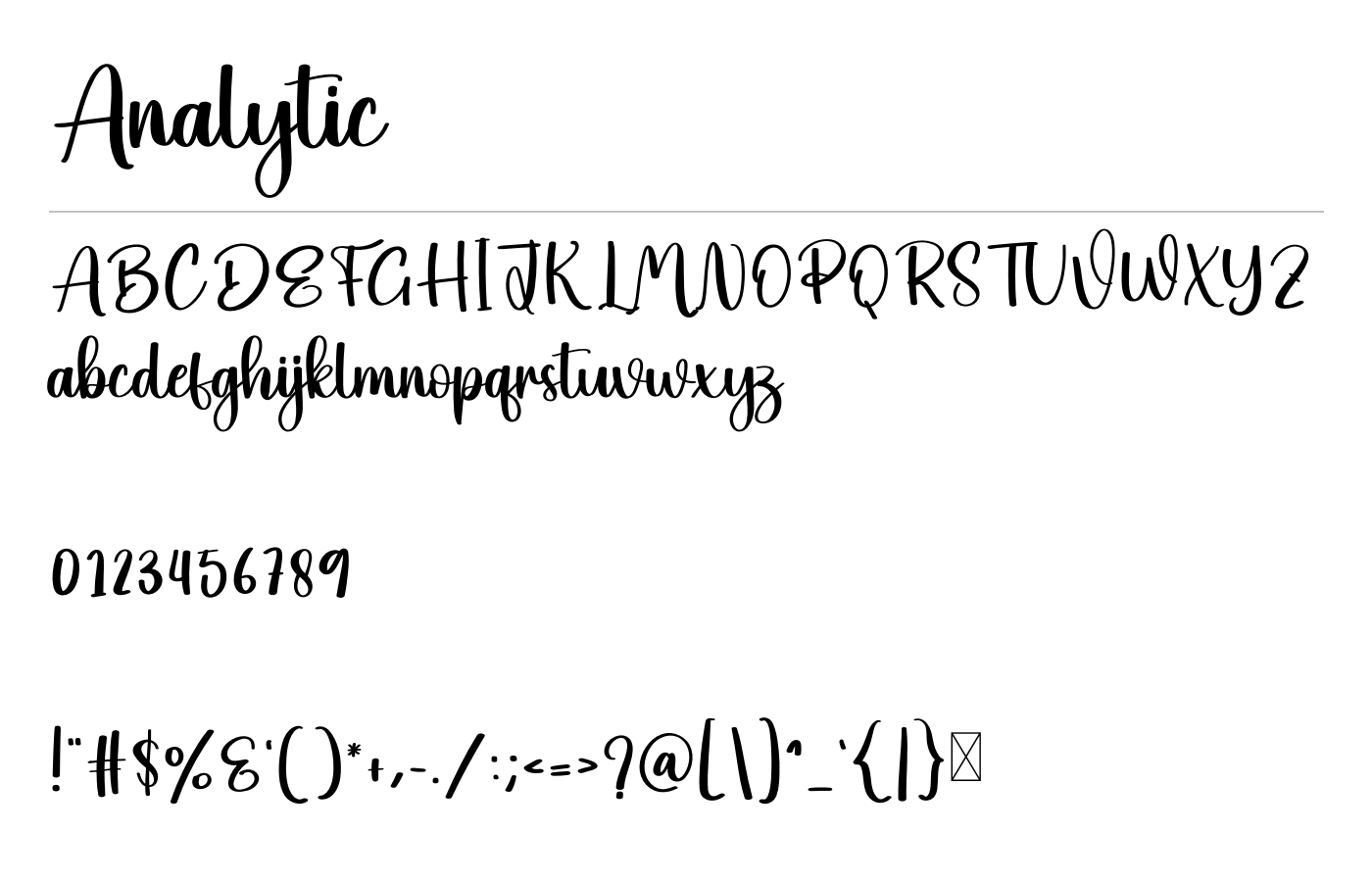
Analytic Font is a lively and elegant script typeface with a warm, handwritten feel. Its flowing letterforms and smooth strokes bring a friendly yet sophisticated vibe, making it perfect for creative branding, invitations, and stylish headlines. This font works well where a personal, approachable touch is desired without sacrificing readability.
Analytic Font